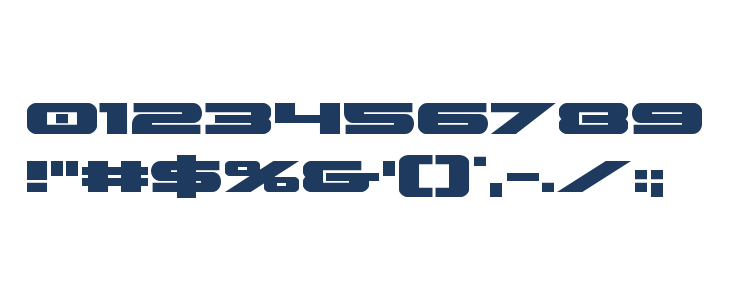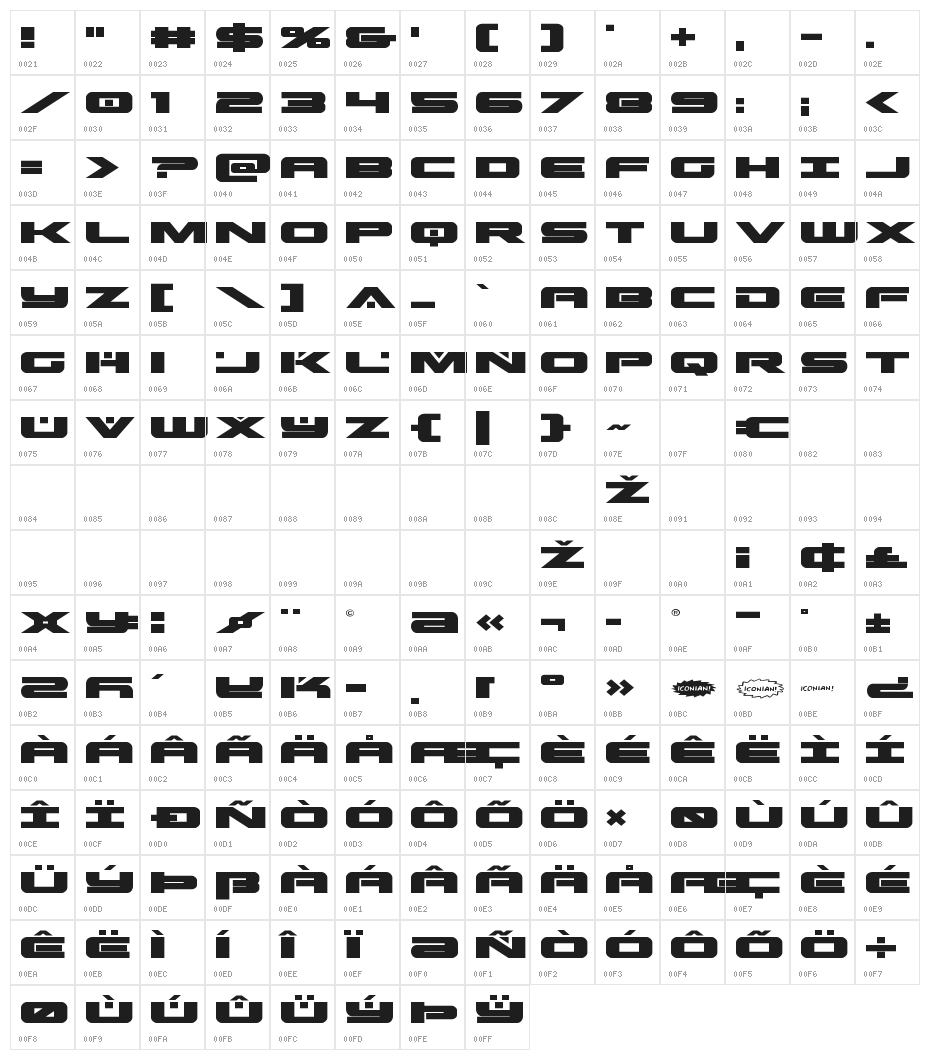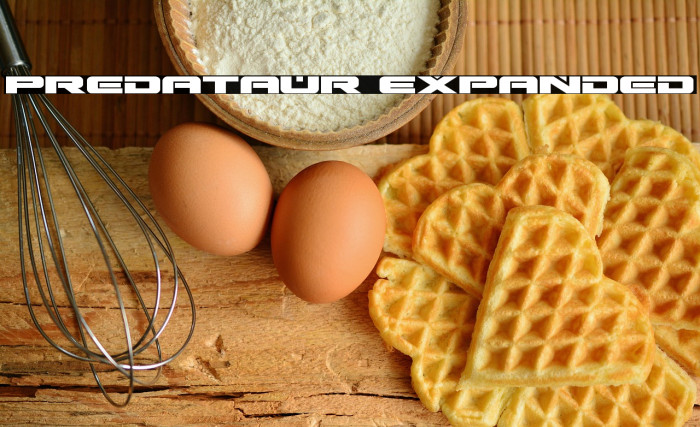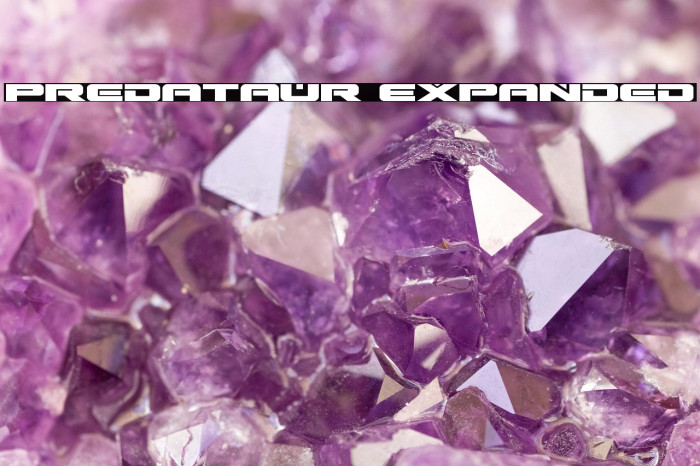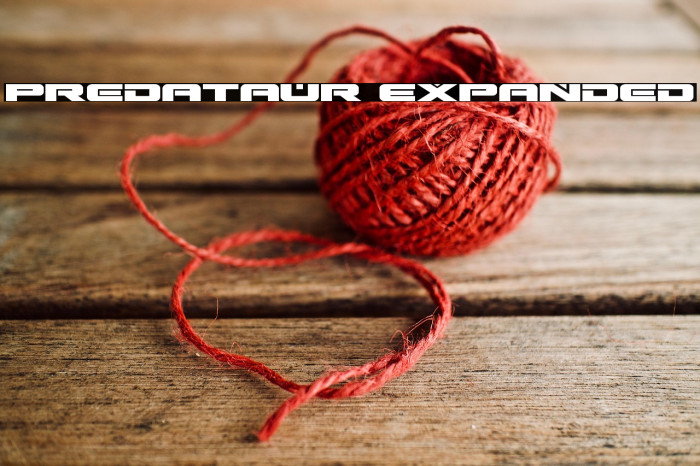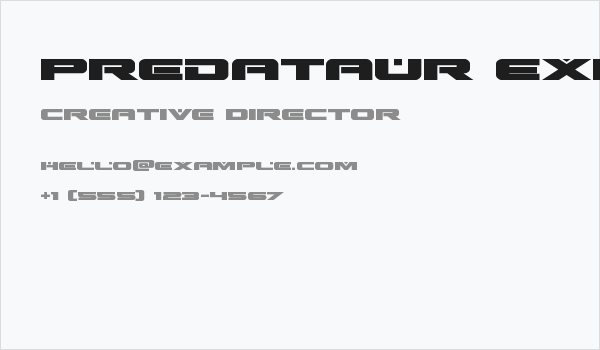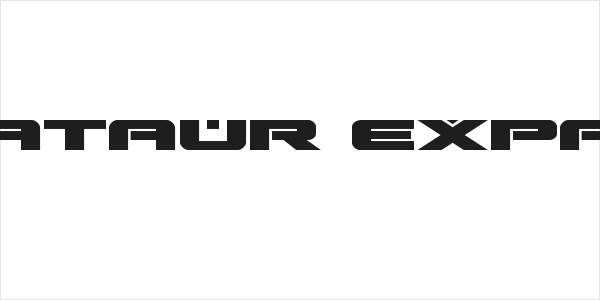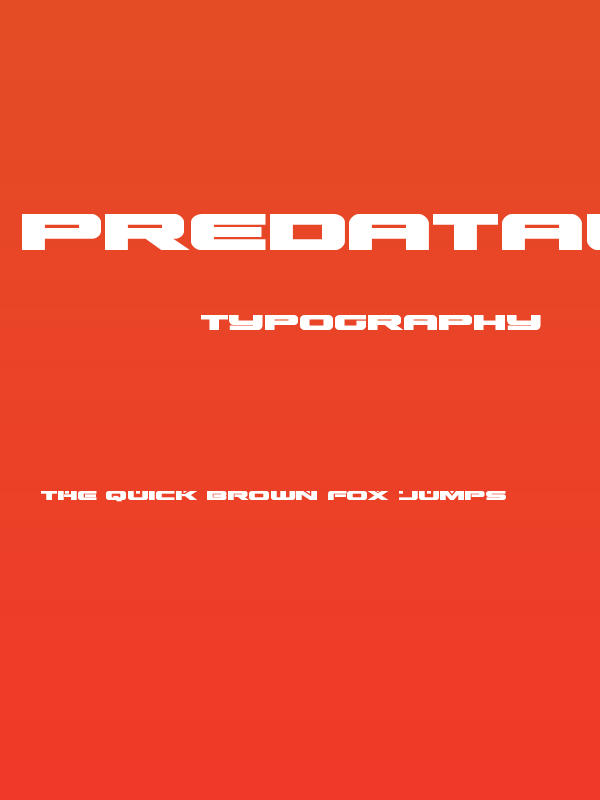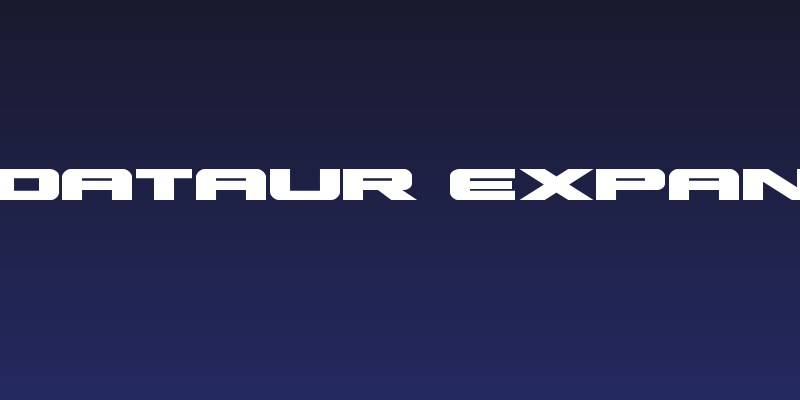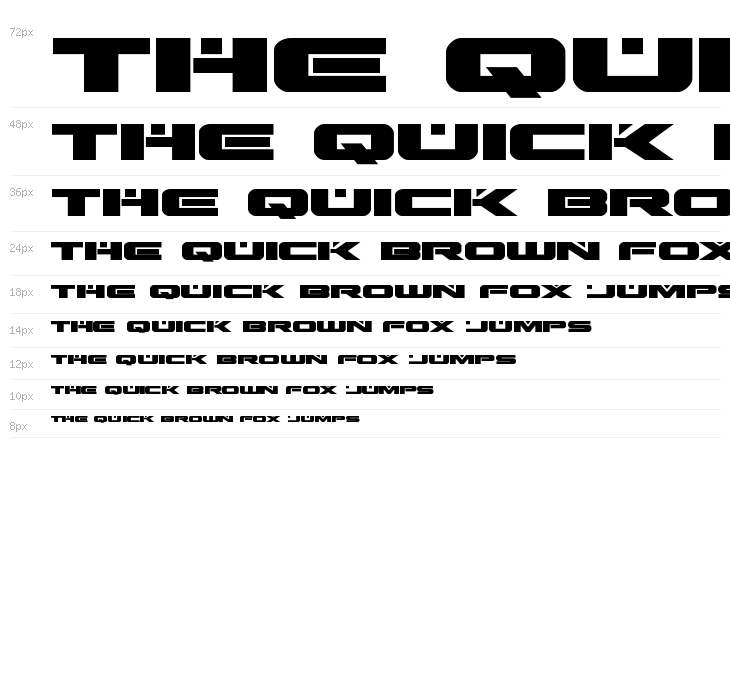
Predataur Expanded Font
Predataur Expanded Description
This font features a bold, futuristic design with a strong geometric influence. The characters are wide and blocky, with a distinct angular style that gives it a modern and tech-inspired appearance. The uppercase and lowercase letters maintain a consistent height, contributing to a uniform look. The numerals and special characters follow the same design principles, ensuring cohesion across all glyphs. The font's expanded width and bold weight make it highly legible and impactful, suitable for attention-grabbing headlines or branding materials.
| Proposed Projects | Ideal for technology branding, sci-fi movie posters, video game titles, and modern advertising campaigns. |